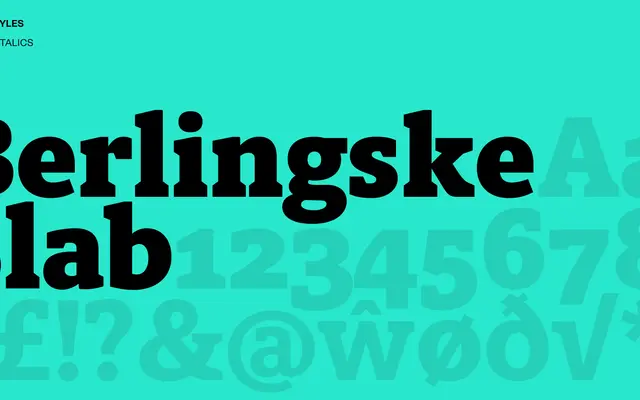
Berlingske Slab
A slab serif from Playtype, associated with the Berlingske media brand and suited to editorial and print contexts.
Berlingske Slab carries the name of one of Denmark's oldest newspapers, suggesting origins in high-volume text setting and editorial design. The sturdy slab construction suits body copy and headline work across print and screen. Its lineage in Danish media publishing gives it a credible grounding in practical, legible typography.
The name and visual identity suggest a sturdy slab serif, likely designed for editorial and newspaper use given the Berlingske association with Danish media.